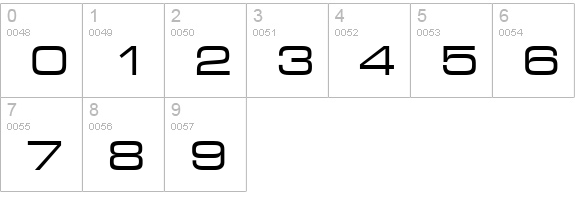
Sportscenter Font Details
Introducing the Sportscenter font - a dynamic and thrilling typeface that brings the excitement of sports right to your fingertips. This font is perfect for all sports enthusiasts, whether you're a dedicated athlete or an avid fan. With its bold and energetic design, Sportscenter captures the essence of competition, adrenaline, and victory. Featuring sleek and modern letterforms, Sportscenter is carefully crafted to convey power and athleticism in every character. Its clean and legible style ensures that your message will be conveyed with clarity and impact. Whether you're designing a sports magazine, creating promotional materials, or simply adding a sporty touch to your project, Sportscenter is the perfect choice. But what sets Sportscenter apart is its versatility. This font is not limited to sports-related projects alone. Its bold and dynamic nature makes it the ideal choice for any design that requires a touch of energy and excitement. From posters to logos, from website headings to social media graphics, Sportscenter will make your design truly stand out. And the best part? Sportscenter is freely available to download at FontsMarket.com. That's right, you can unleash the power of this incredible font without spending a dime. FontsMarket.com is your go-to destination for high-quality fonts, and Sportscenter is just one of the many amazing options they offer. So, don't miss out on the opportunity to elevate your design game with the Sportscenter font. Download it today from FontsMarket.com and infuse your projects with the energy and enthusiasm of sports. Let Sportscenter take your designs to new heights and score a winning goal with every visual creation.